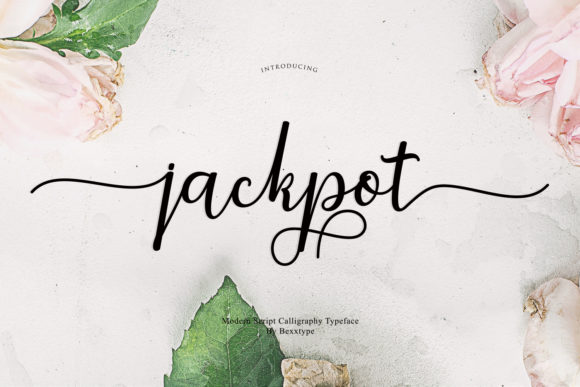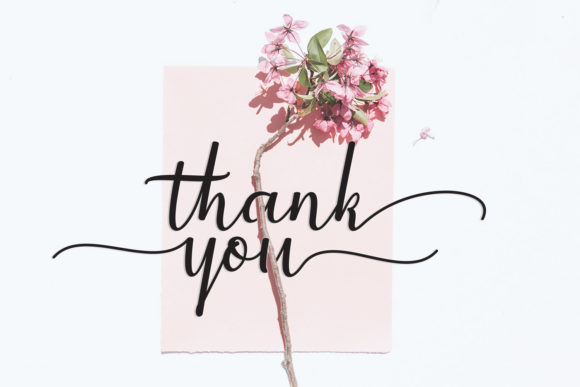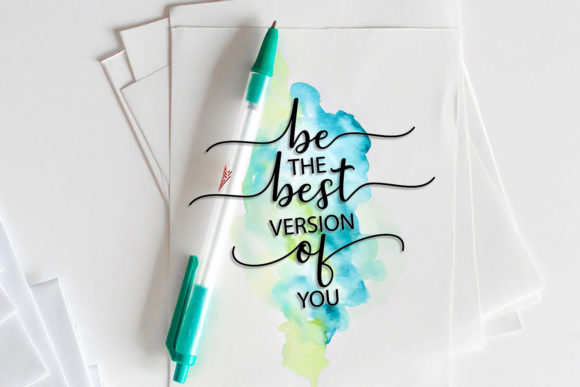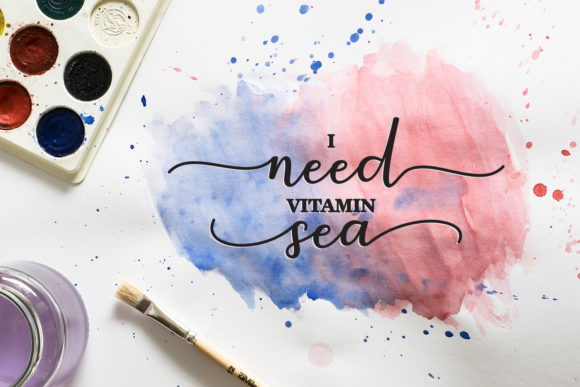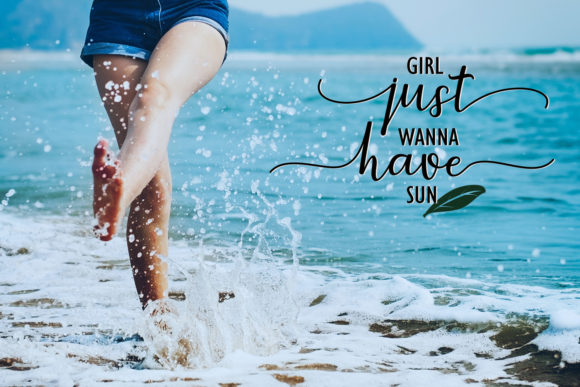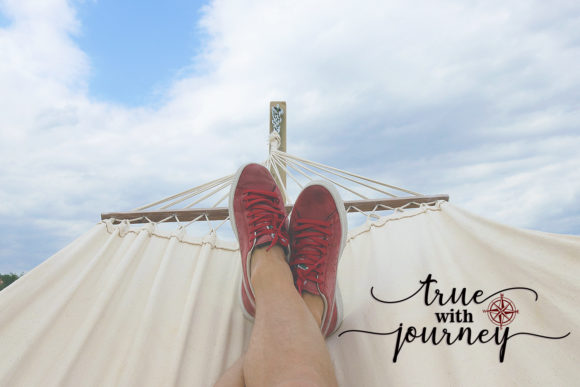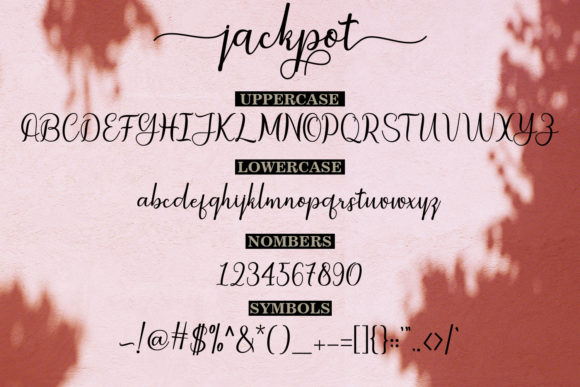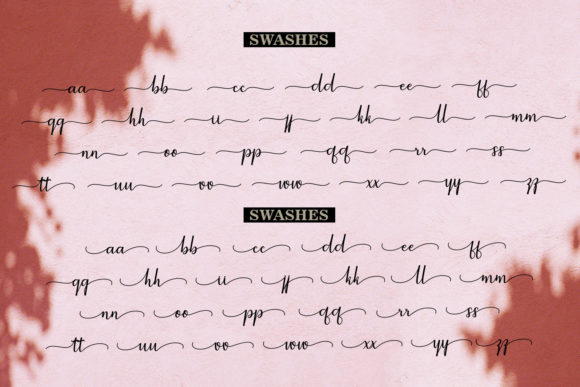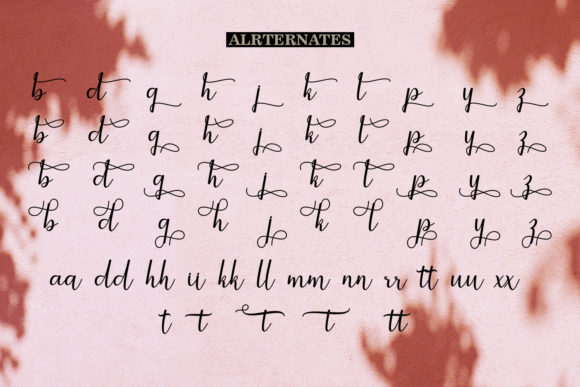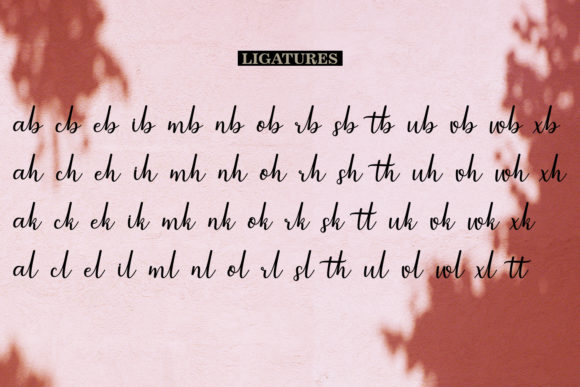
HomeScript FontsJackpot Script Fonts Jackpot Script Font FacebookTwitterPinterestWhatsApp Jackpot Script Font Poster 2 Jackpot Script Font Poster 3 Jackpot Script Font Poster 4 Jackpot Script Font Poster 5 Jackpot Script Font Poster 6 Jackpot Script Font Poster 7 Jackpot Script Font Poster 8 Jackpot Script Font Poster 9 Jackpot Script Font Poster 10 About Jackpot Script Font Jackpot is a sweet and simple script with a contemporary vibe. Get inspired by its authentic charm! DOWNLOAD NOW People also explored Amidala Font Betrothed Font Cute Speech Font Mental Rounded Font Jovial Japes Font Carglos Font The Eldians Font Novyana Font Ferguson Font 134 0 TagsJackpot Script Font Previous articleSyahilla Script FontNext articleSheila Script Font LEAVE A REPLY Cancel reply Comment: Please enter your comment! Name:* Please enter your name here Email:* You have entered an incorrect email address! Please enter your email address here Website: Save my name, email, and website in this browser for the next time I comment. Personal Use Free Amellis Path Personal Use Free Read more about this font BD Console Personal Use Free Read more about this font Loving You Personal Use Free Read more about this font Arnitta Callina Personal Use Free Read more about this font BLOG Free vs Paid Fonts: Why Investing in Premium Fonts Is Worth It Free vs Paid Fonts: Why Premium Fonts Are Worth It in 2025 The debate of free vs paid fonts continues in the design world. While... Using Fonts in Digital Marketing: Tips to Strengthen Your Brand Identity Top 7 Google Fonts Alternatives for Faster and Privacy-Friendly Web Design (2025) Exploring Font Trends